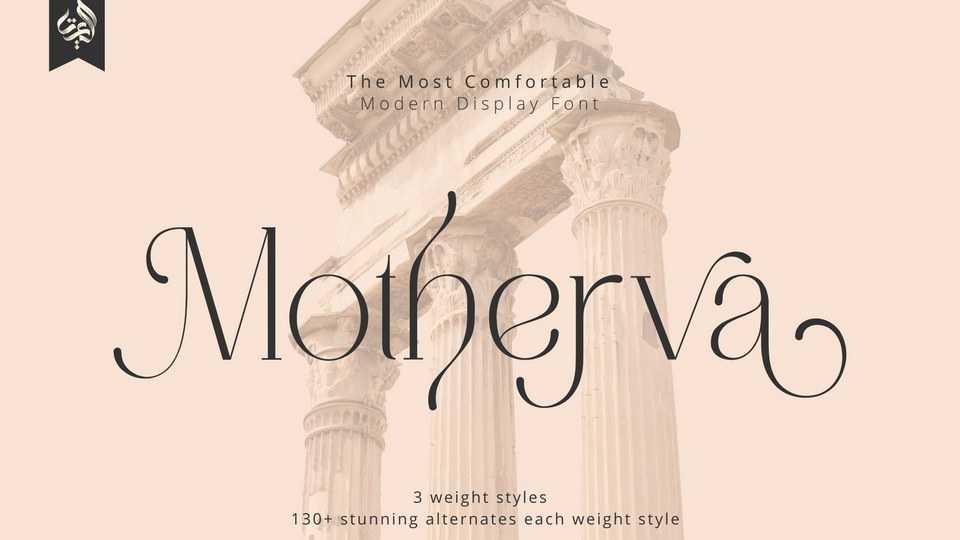
Download Motherva font, the most comfortable modern display serif typeface. Motherva is very suitable for magazine, headline, website, ads, product package and all type of design project you have.